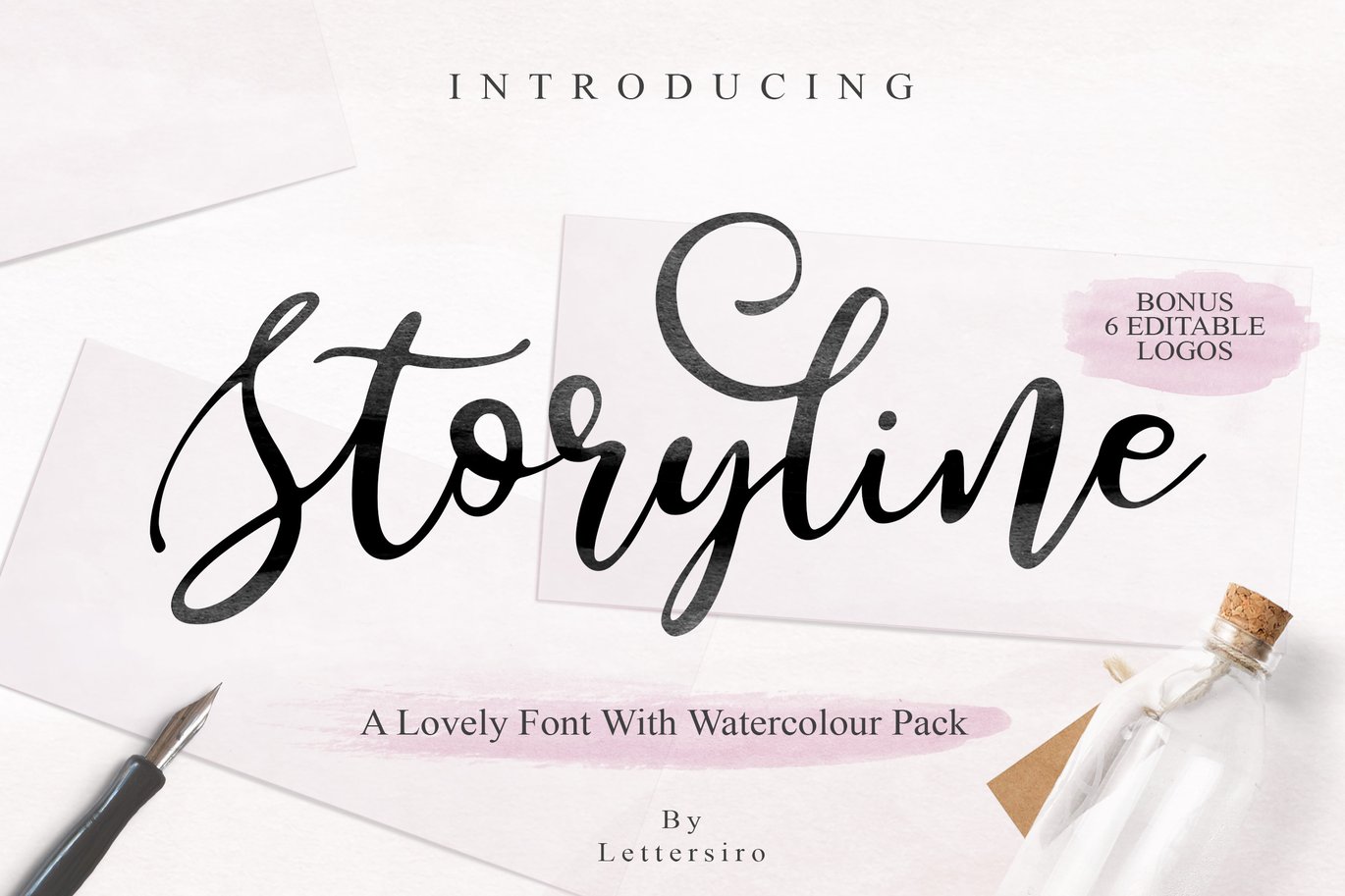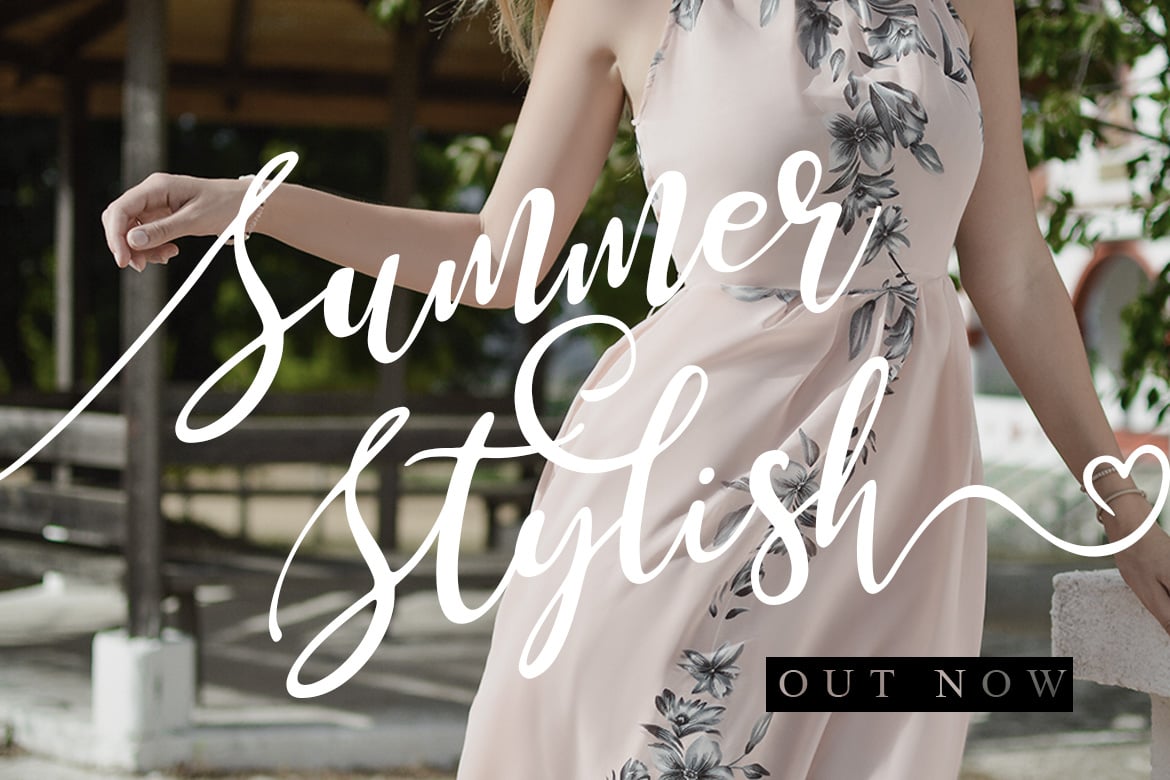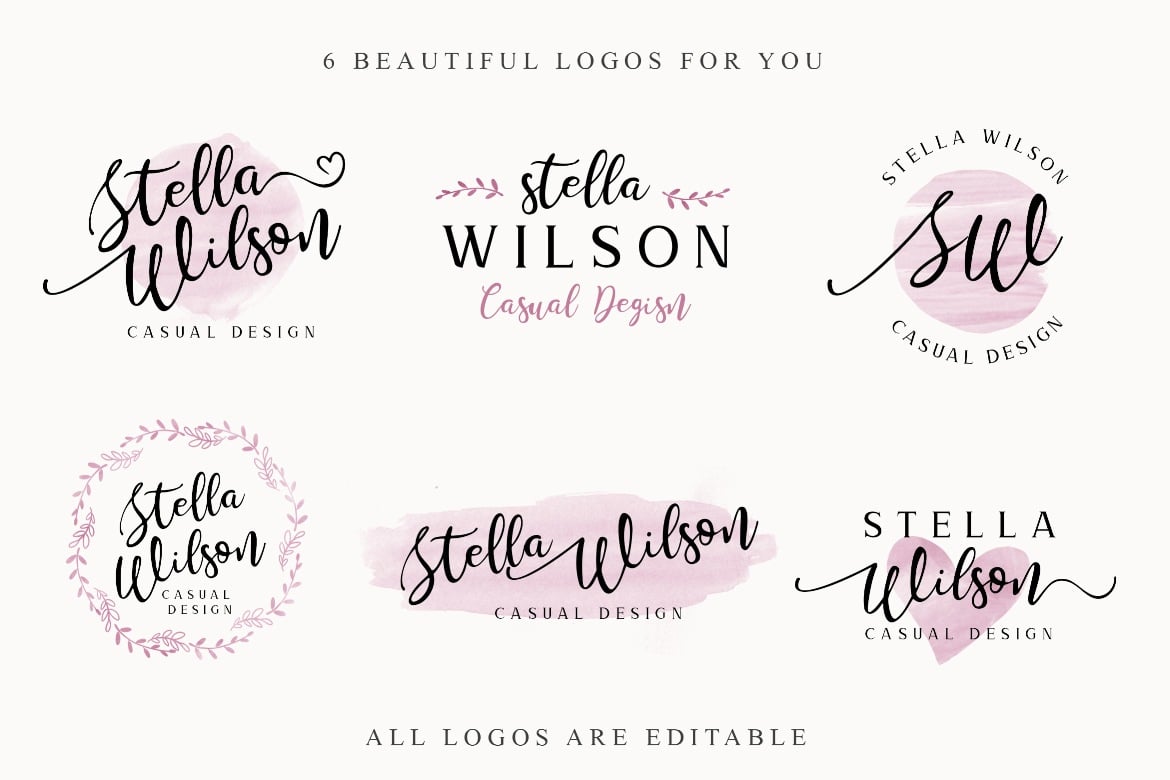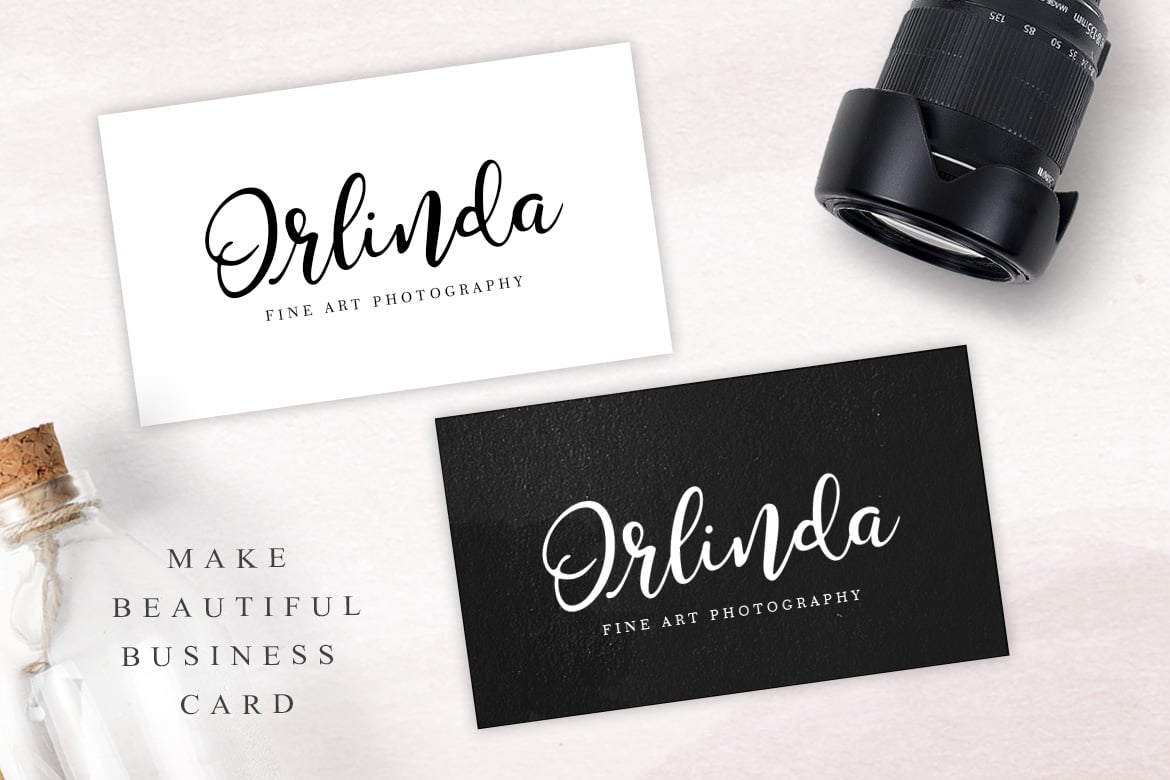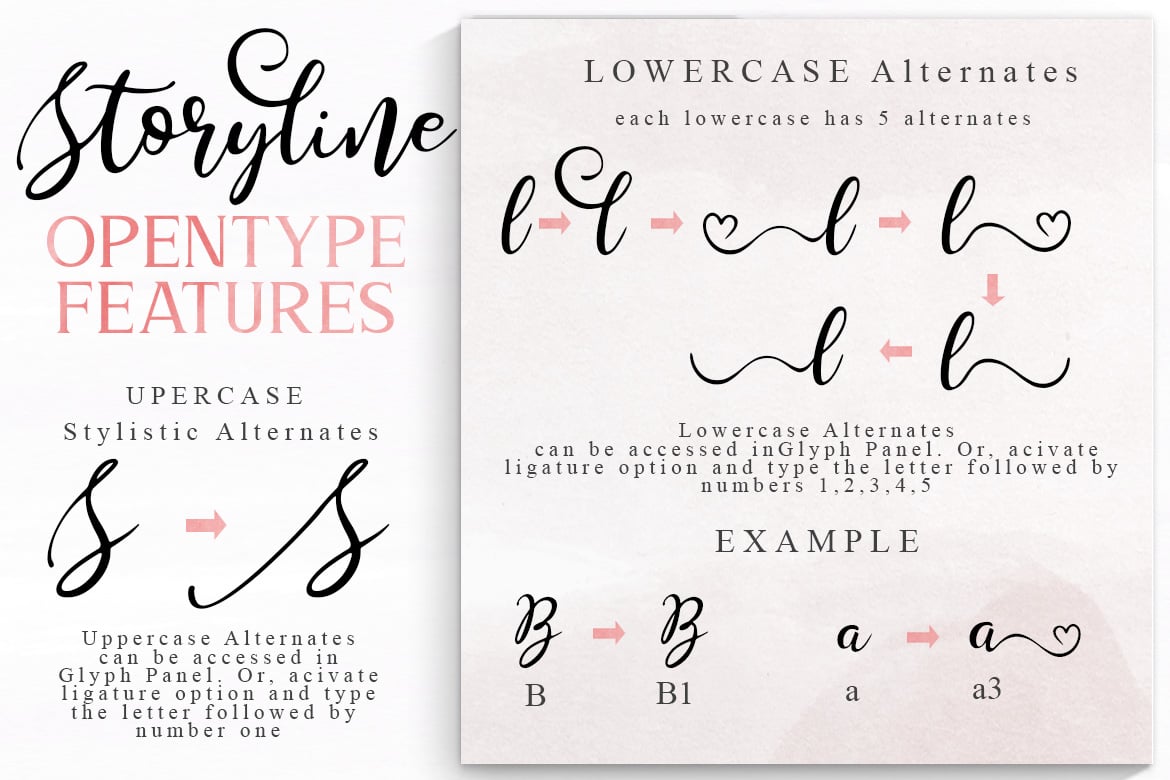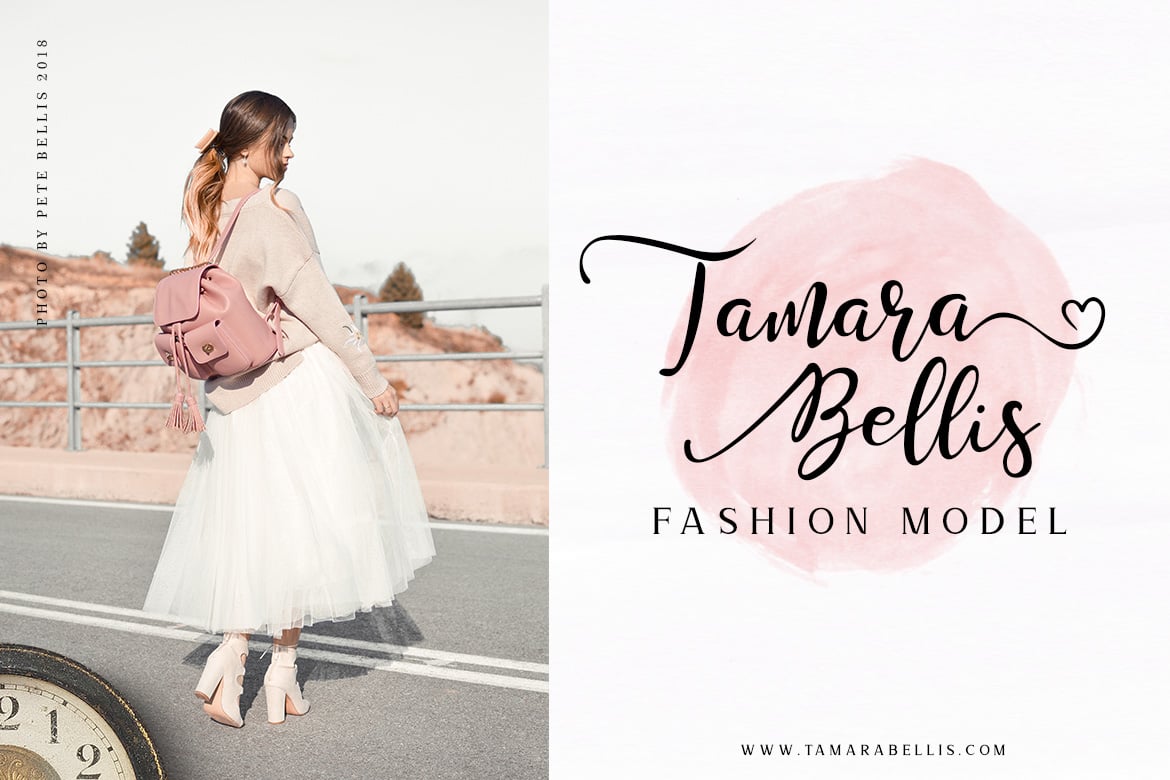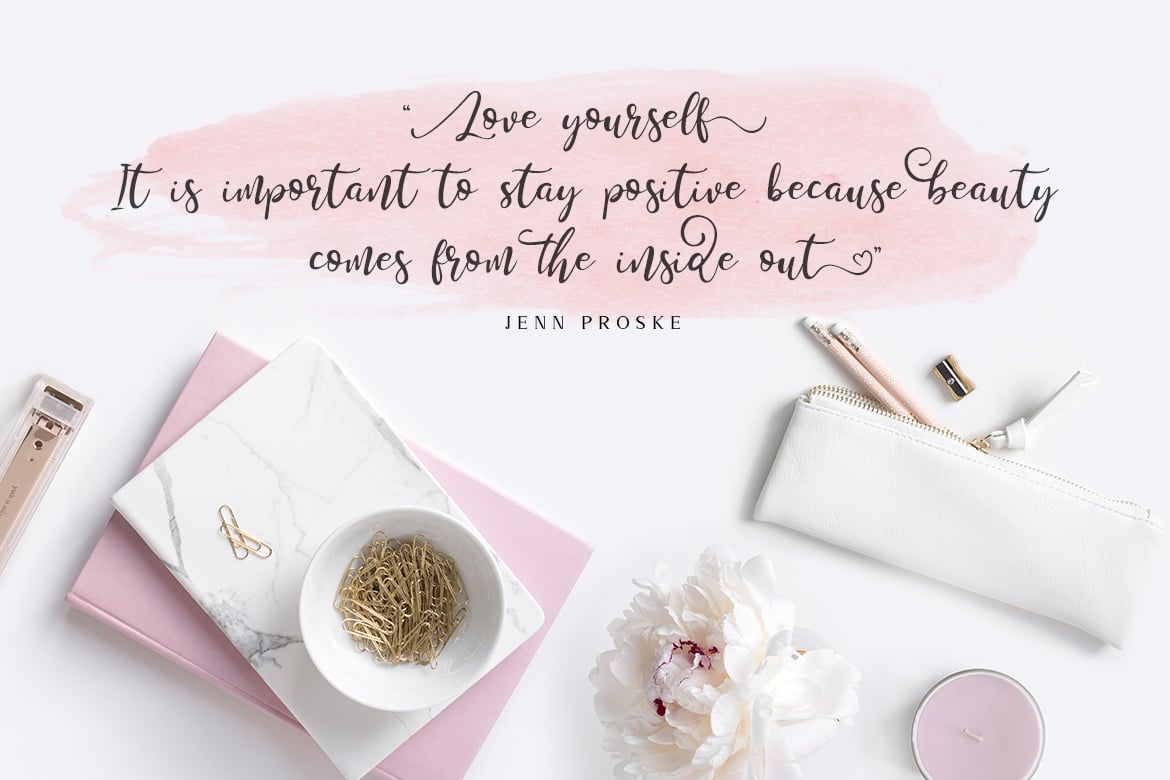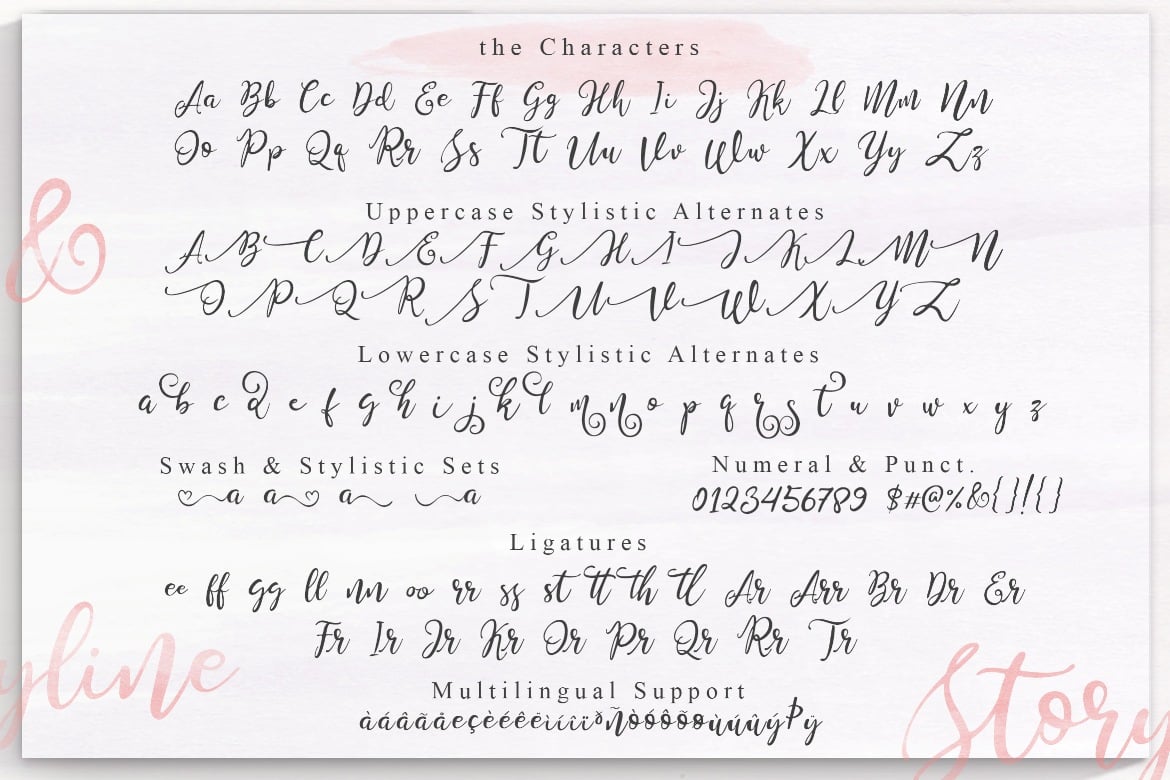
Storyline Font & Watercolour Pack
This is a beautiful font , romance font, and glorious font.
We called it Storyline Font. The font that comes with a lot of alternates, bonus 6 editable logos, bonus one serif font, and 10 watercolour brushes.
Storyline font is great for logo, branding, wedding invitation, website, magazine, poster, quotes, and many many design projects.
- Storyline Otf /TTF. The font has stylistic alternates, swash, initial form, and ending form, also ligature. You can make your custom lettering or logo with those alternates
- Congrats ! You get bonus font “Stories Serif”. The Stories Serif will make beautiful combination with Storyline Script . Available in OTF/TTF